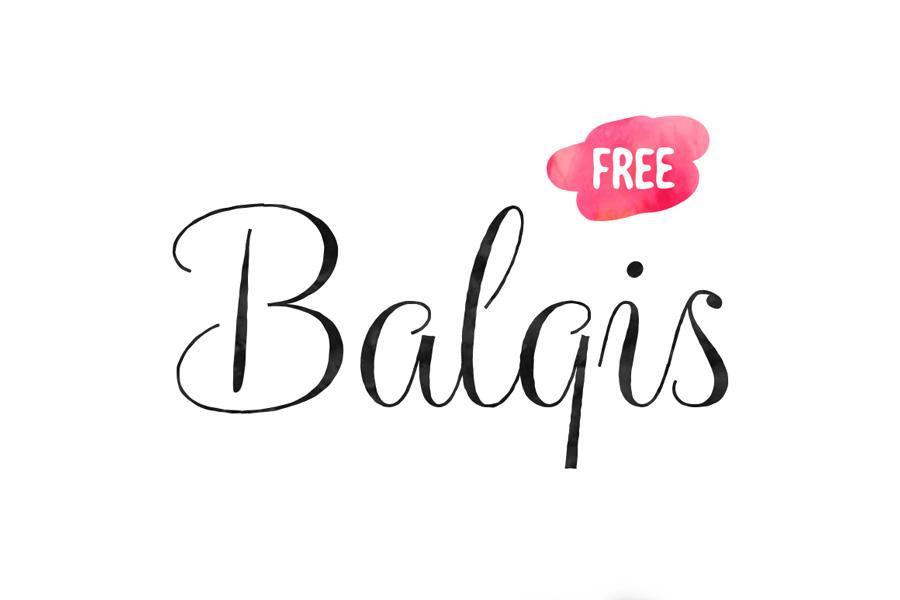
Free Balqis Font
Take a look at this dazzling free balqis font. Go give some love to Free Design Resources for creating this top-notch free font. This is absolutely fancy font so you can easily make world-class designs.